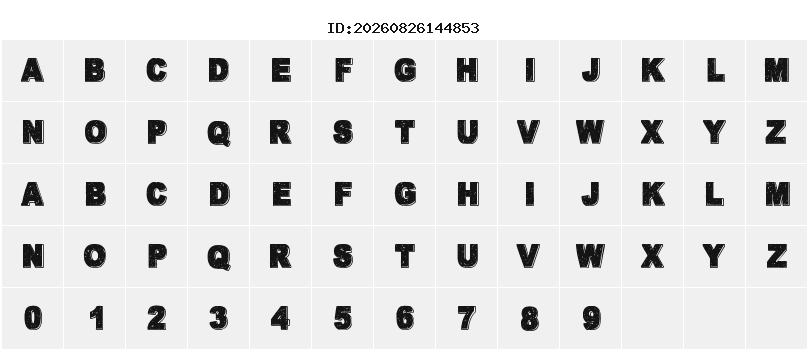
Walk with me now Preview
• Font Name: Walk with me now
• Full Font Name: Walk with me now
• Version: Version 1.00 January 29, 2015, initial release
• Designer: junkohanhero
About Walk with me now.ttf
Walk with me now.ttf is a modern, elegant sans-serif font designed for ultimate readability and visual harmony. Perfect for branding, headlines, web design, and print materials.